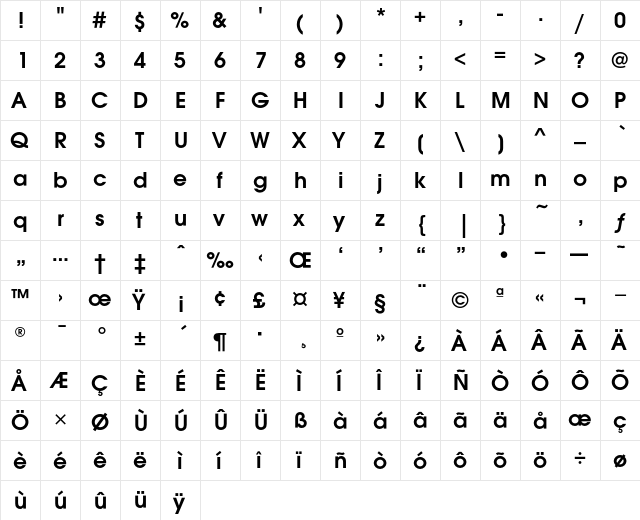
AvantGardeITC Demi
Design Context for AvantGardeITC Typeface
AvantGardeITC is a composed and adaptable typeface that performs quietly and consistently across a wide range of design contexts.
Pro Tip: Pair AvantGardeITC with a font of contrasting weight or personality to build a more expressive typographic hierarchy.